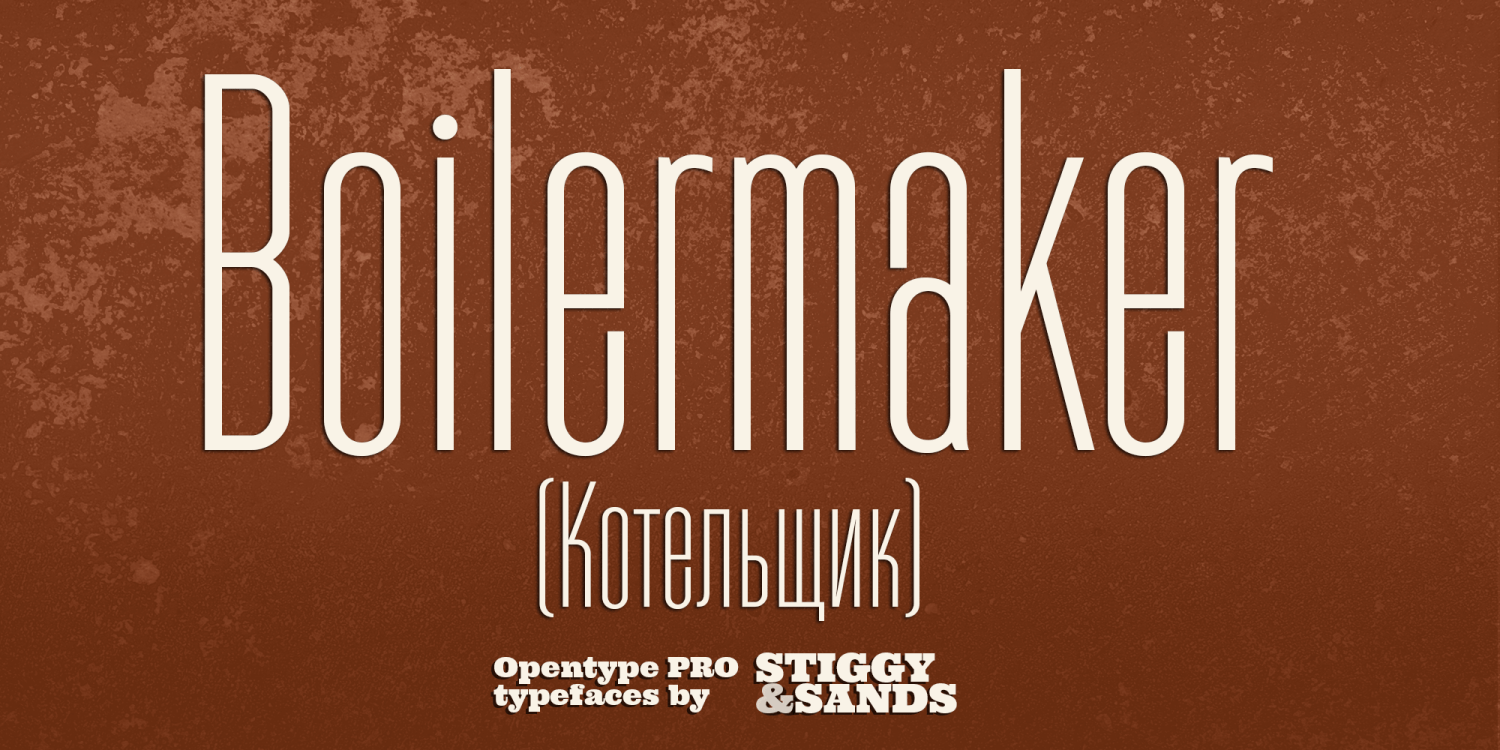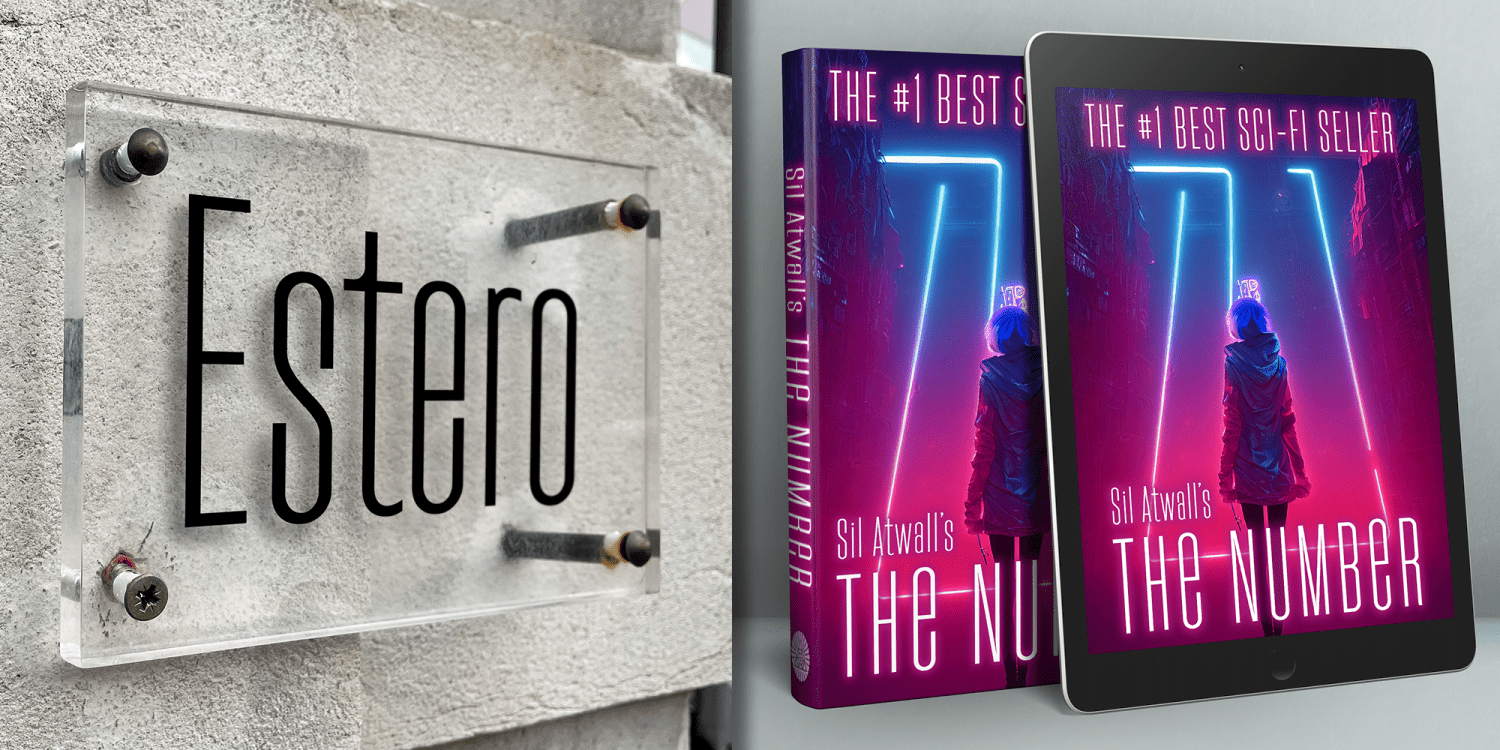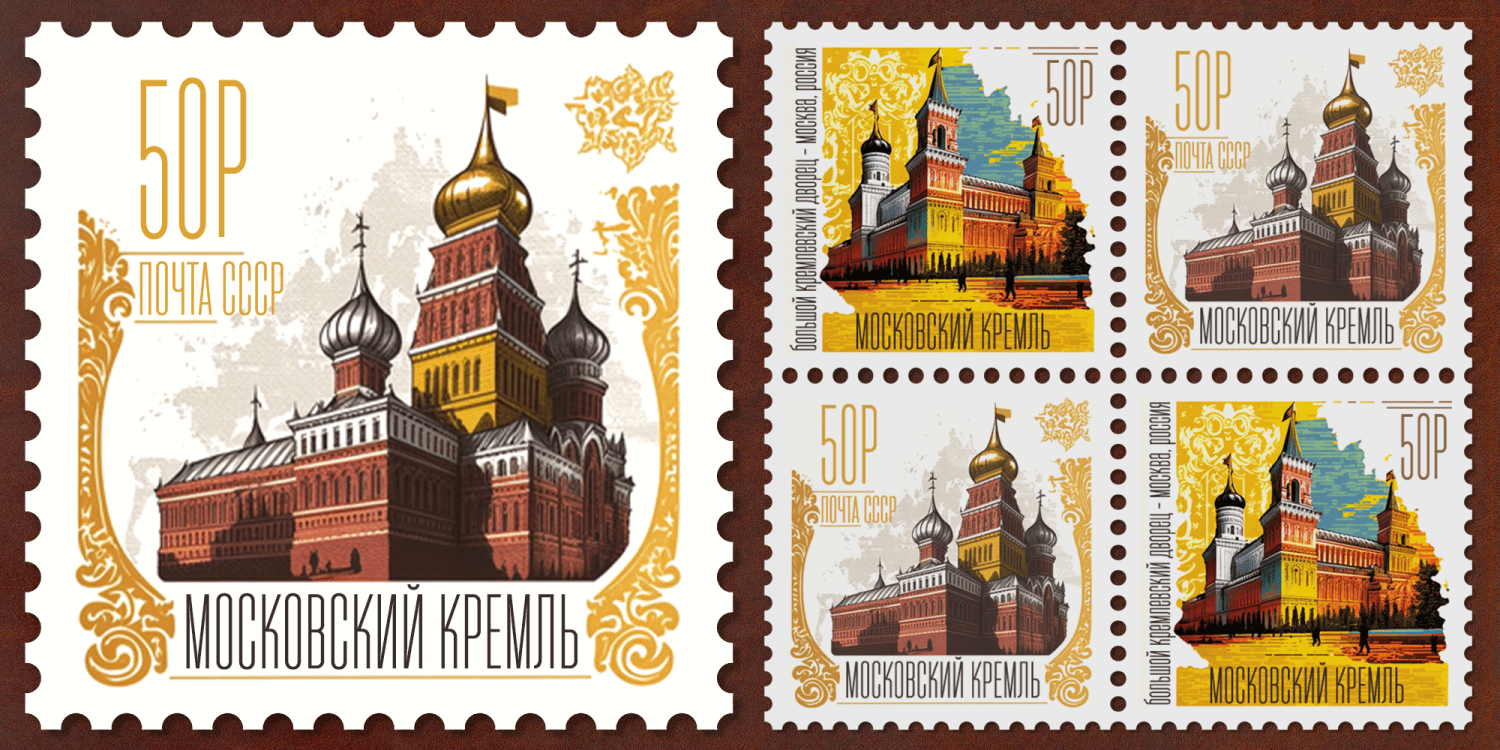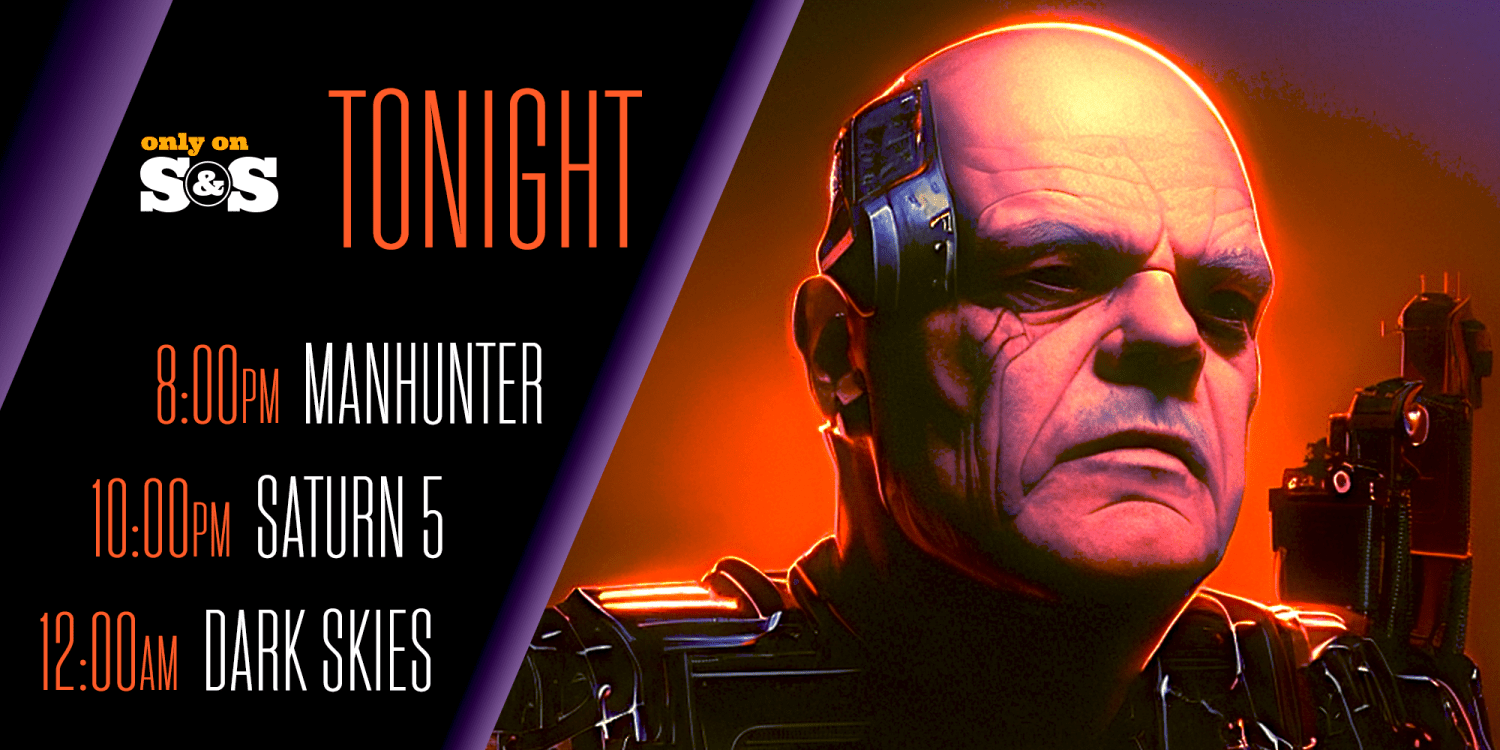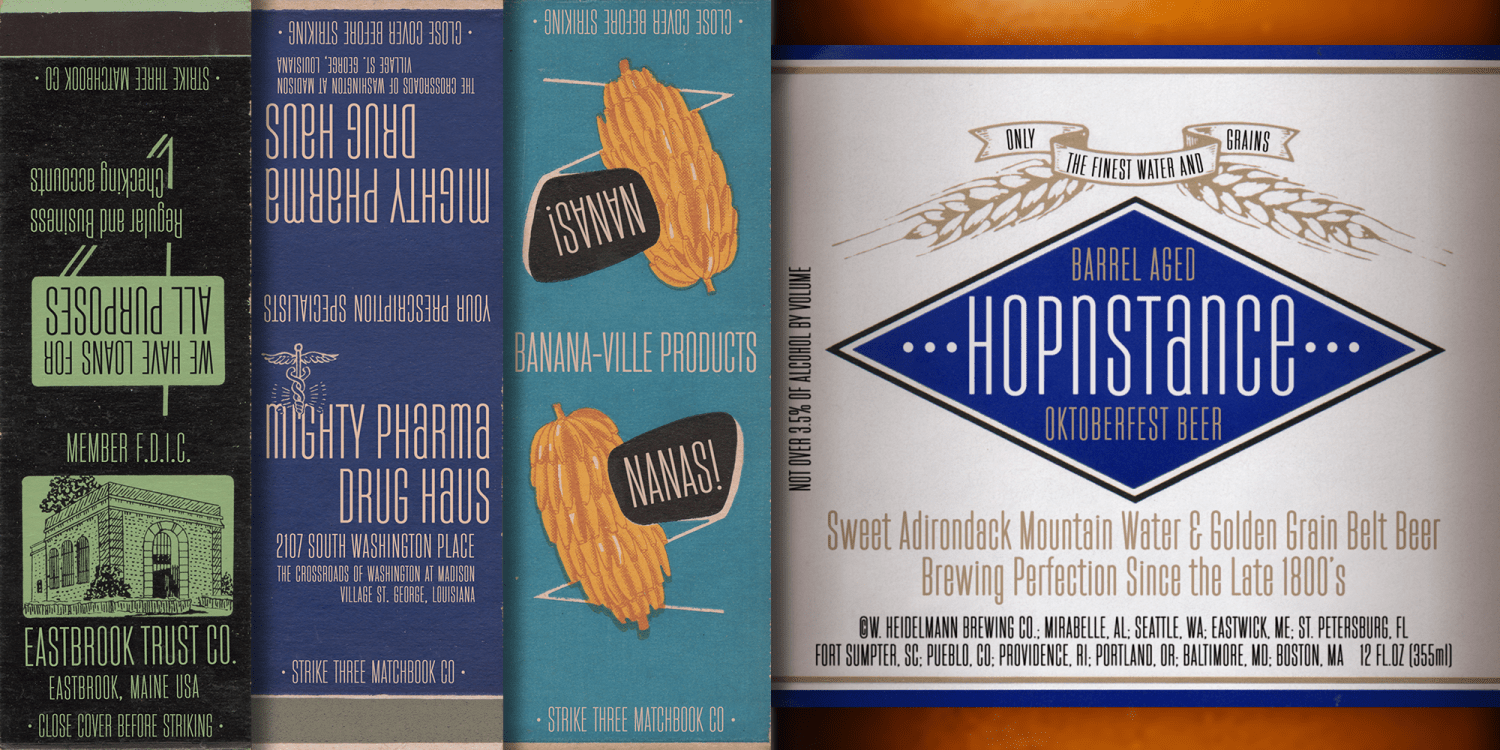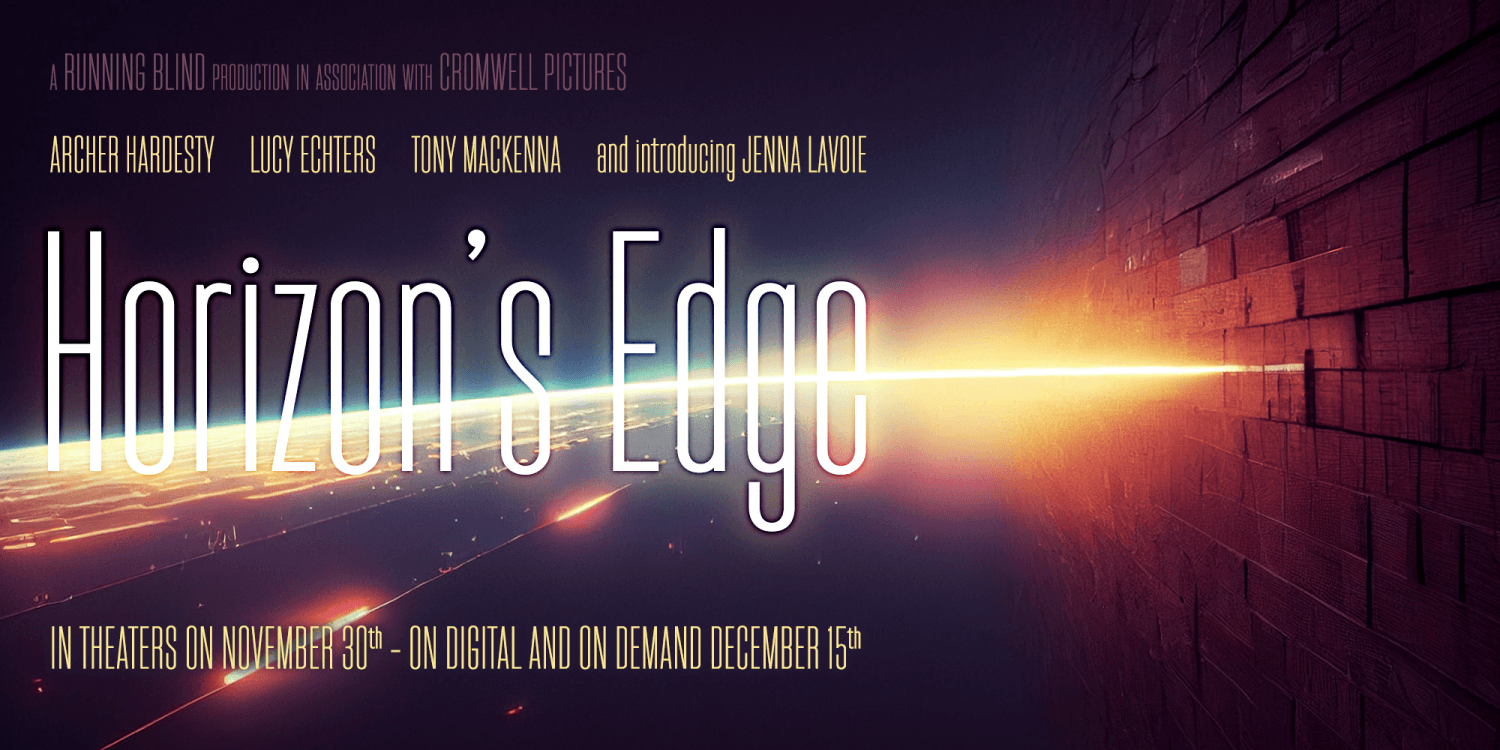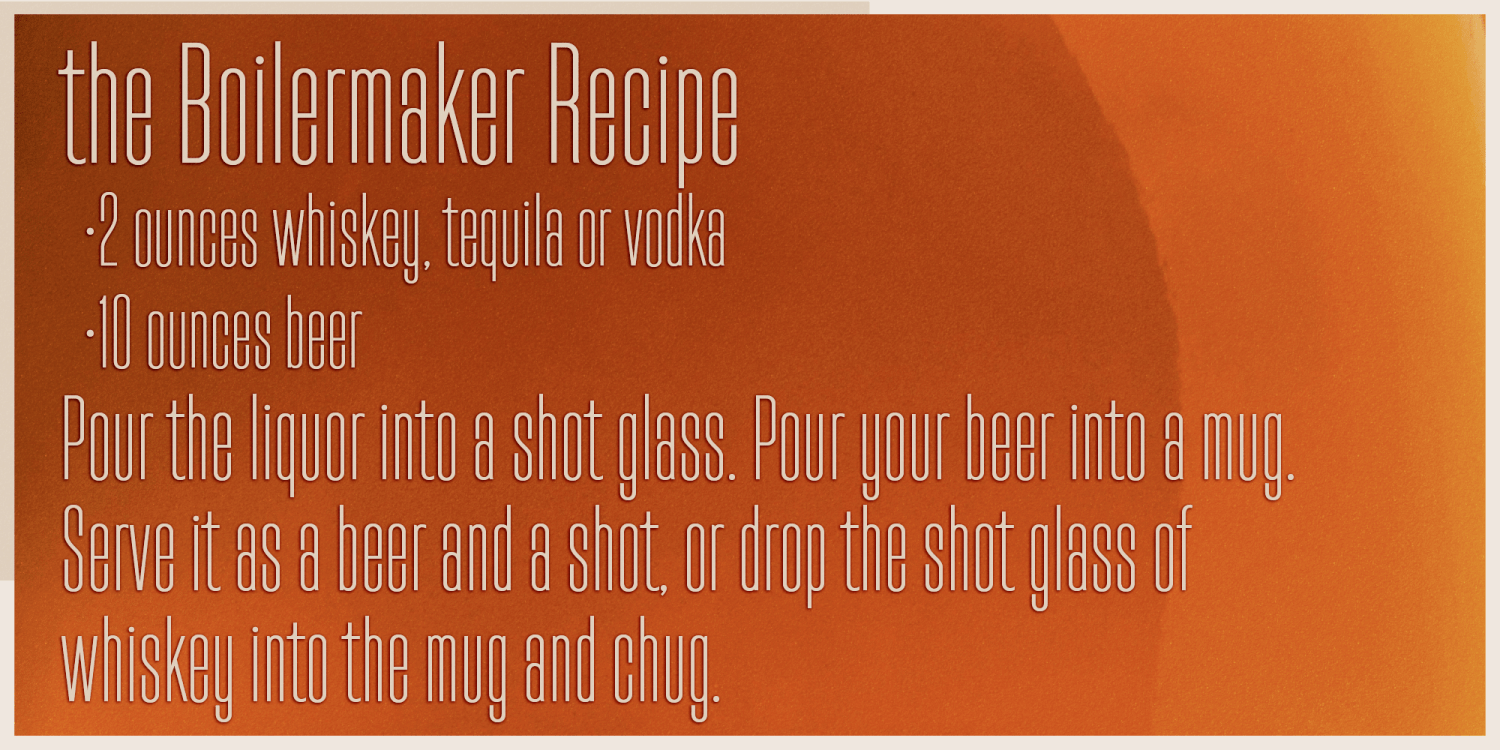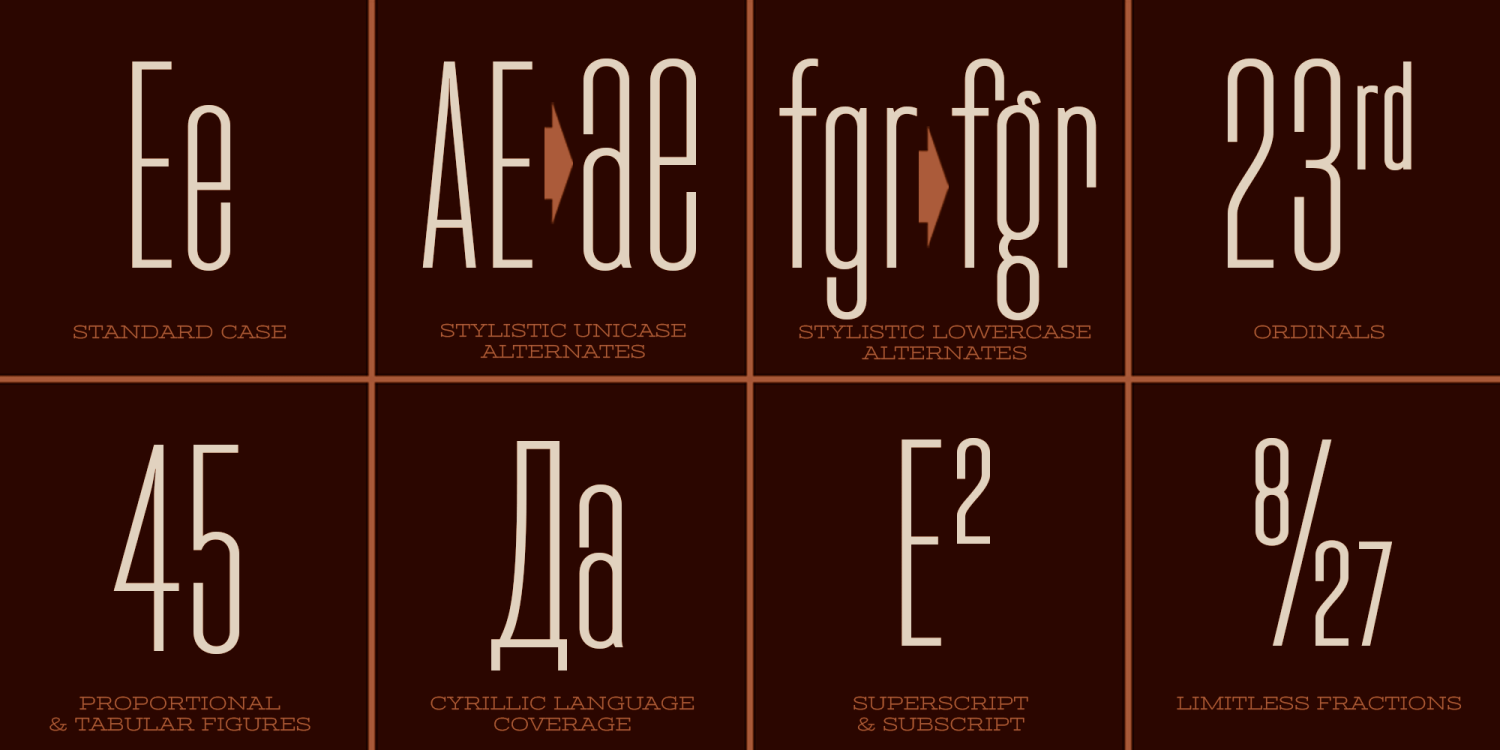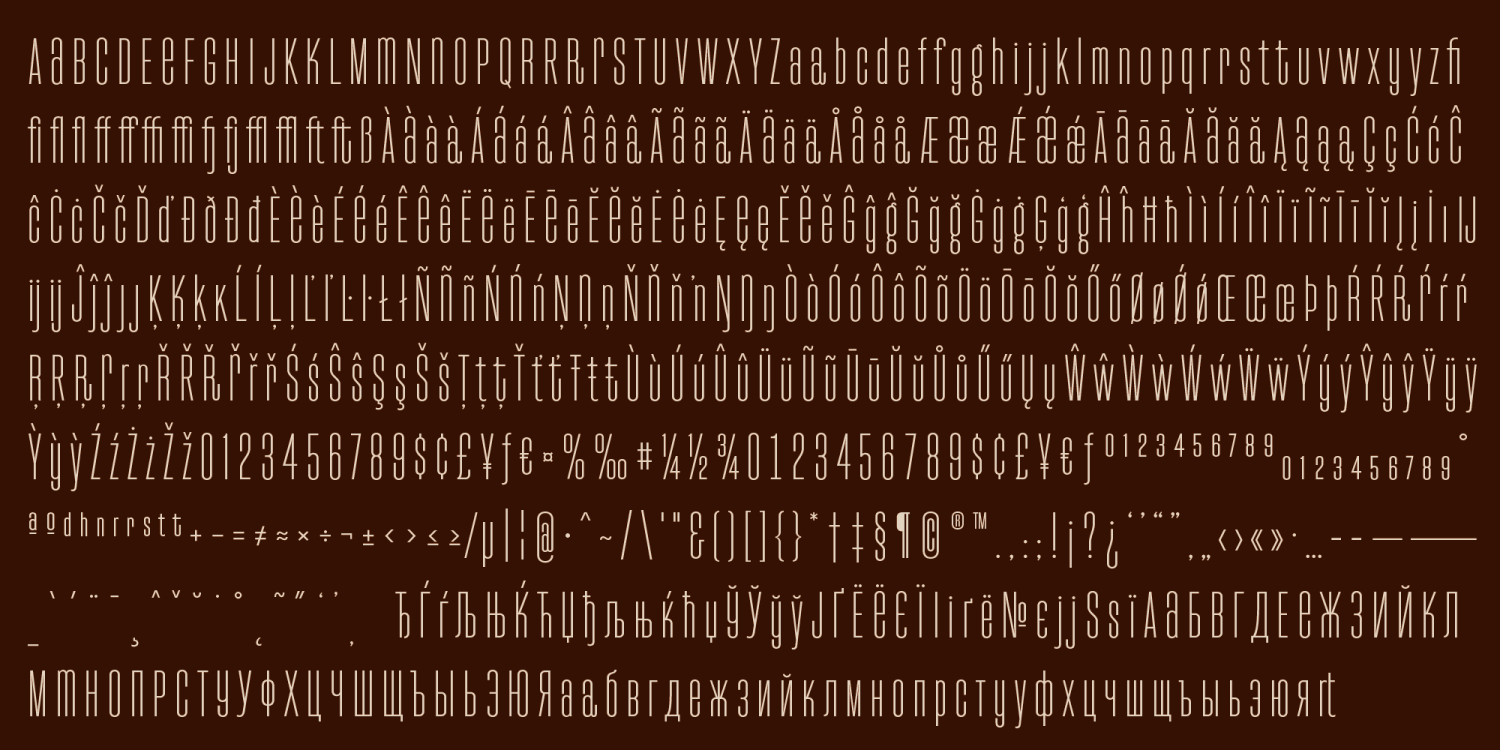
Boilermaker
Font Family by Stiggy & Sands
A Stylish Condensed Sans
Boilermaker began as a digitization of a film typeface from LetterGraphics dubbed Flair G100. From this origin, it has evolved to a much more robust character set than its original. From the inclusion of original unicase and lowercase alternates to the addition of a Russian language expansion, Boilermaker really shines.
Boilermaker is loaded with features to give you plenty of customisation options:
Stylistic Alternates feature for Unicase & Lowercase alternates.
Russian language coverage.
A Full set of Inferiors and Superiors for Limitless Fractions
Tabular and Proportional figure sets
Approx. 602 Character Glyph Set: Boilermaker comes with a glyphset that includes standard & punctuation, international language support, unicase & lowercase alternates, alternate numeral styles, subscript and superscript.